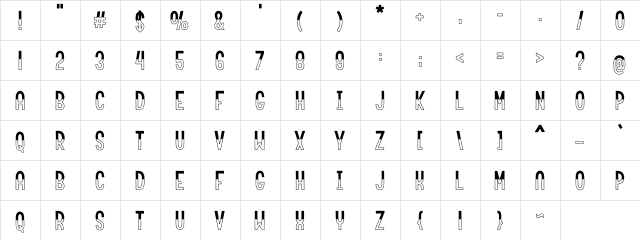
Roundabout Fill Regular
Design Context for Roundabout Fill Typeface
Roundabout Fill softens its letterforms with rounded terminals, giving it an approachable, friendly quality that works well in consumer-facing and digital contexts.
A natural fit for tech startups, health and wellness brands, children's products, and friendly consumer apps.
Font Pairing: Pairs well with a rounded or humanist sans for body copy, maintaining the friendly tone without relying on Roundabout Fill to carry extended reading.
Pro Tip: Pair Roundabout Fill with a geometric sans for a balanced system — the rounded softness works as a warm counterpoint to harder-edged companions.